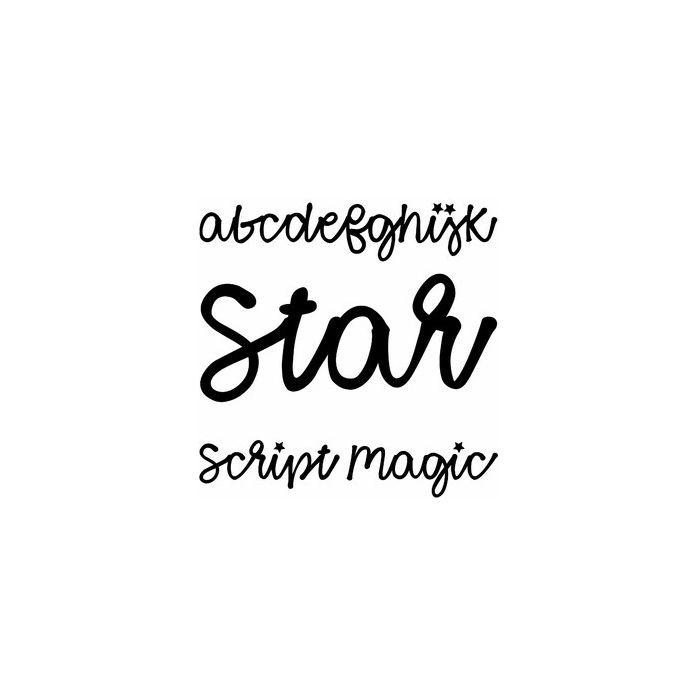
Star Script Magic is a fun gel pen handwriting font. Cute for Halloween, Christmas, and birthday projects like signs, cards, labels, stickers, and monograms. Includes alphabet, numbers, and punctuation.